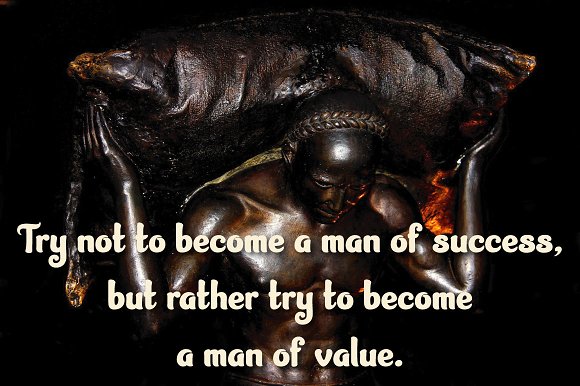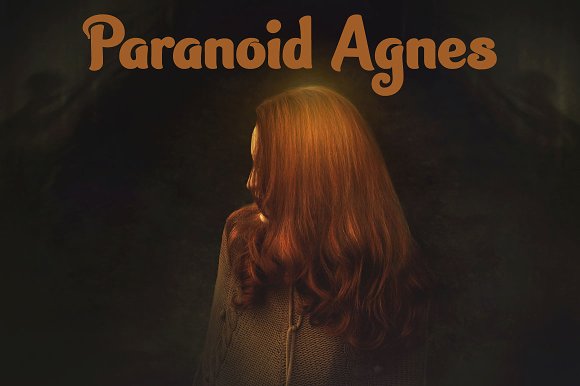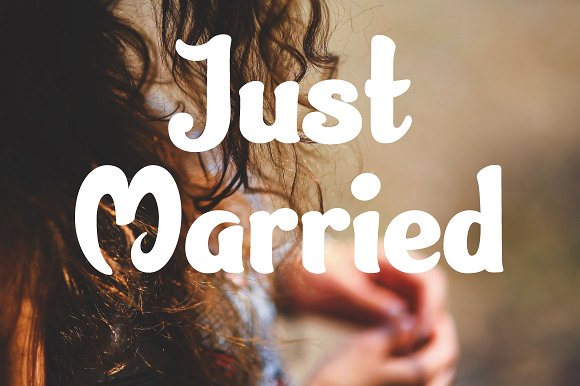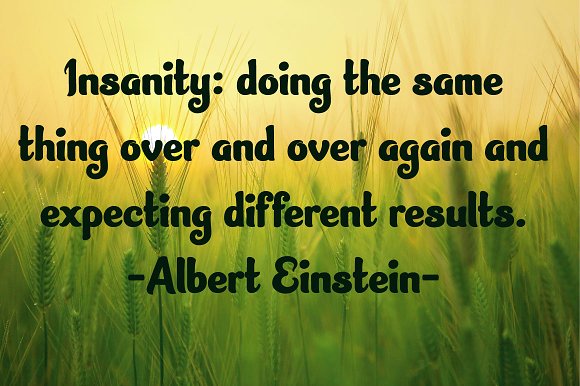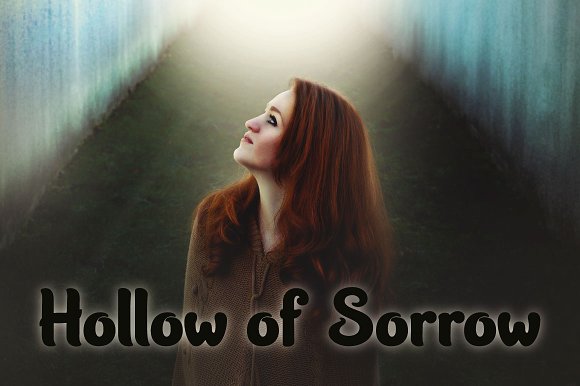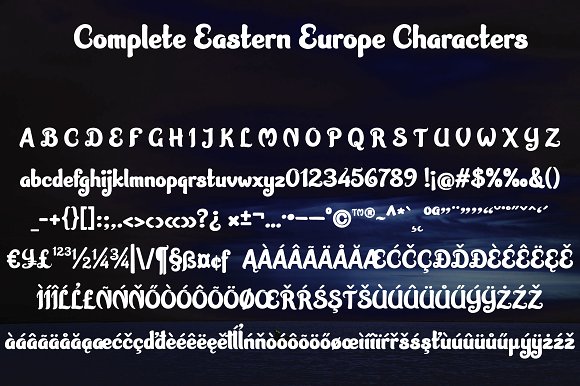
Garden Sans Font: A Fresh and Bold Typography for Designers and Crafters
Are you tired of using the same old fonts in your designs? Look no further than Garden Sans Font, a cool and bold rounded semi-sans serif font created by Darwinoo. With over 370 unique glyphs, this font is perfect for designers and crafters looking to add a touch of freshness and personality to their work.
What is Garden Sans Font?
Garden Sans Font is a modern and versatile font that combines the clean lines of sans serif fonts with the softness of rounded fonts. The result is a unique and eye-catching typography that is perfect for a wide range of design projects, from logos and branding to signage and packaging.
Key Features of Garden Sans Font
- Unique Glyphs: With over 370 unique glyphs, Garden Sans Font offers a wide range of characters, symbols, and ligatures to help you create custom and personalized designs.
- Bold and Rounded: The font’s bold and rounded design makes it perfect for headlines, titles, and emphasis text, while its semi-sans serif style adds a touch of sophistication and elegance.
- Versatile: Garden Sans Font is suitable for a wide range of design projects, from digital designs to print materials, and can be used for both personal and commercial projects.
Who is Garden Sans Font for?
Garden Sans Font is perfect for:
- Graphic Designers: Looking for a fresh and modern font to add to their typography arsenal.
- Crafters: Creating handmade products, such as signs, cards, and gift tags, and wanting to add a personal touch to their designs.
- Small Business Owners: Needing a unique and recognizable font for their branding and marketing materials.
- DIY Enthusiasts: Creating their own designs and looking for a font that is easy to use and versatile.
Tips and Tricks for Getting the Most out of Garden Sans Font
- Experiment with Sizes: Garden Sans Font looks great in a variety of sizes, from large headlines to smaller body text.
- Mix and Match: Combine Garden Sans Font with other fonts to create a unique and eye-catching typography.
- Play with Colors: Use Garden Sans Font with a range of colors to add visual interest and personality to your design.